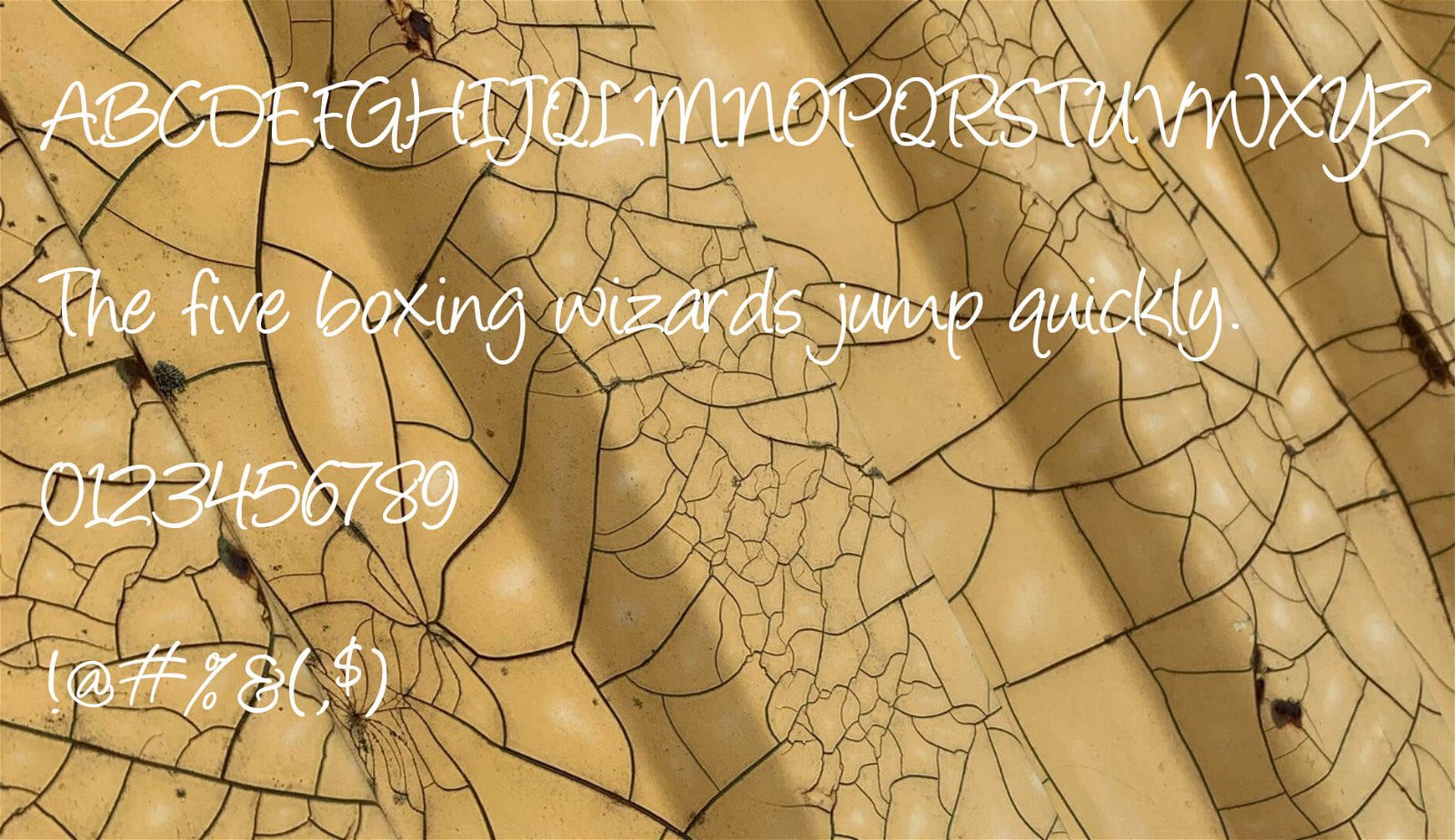
Introducing Angelina font, this is a very high-quality script typeface that is designed by Angie Durbin. It has a natural and ultra-modern style. This typeface comes in one regular natural style as well as amazing features that are perfect for all design projects such as card designs, Quotes, weddings, brands, fashion designs, and many more. This is a superior typeface that provides a unique look to any document and it has a great appearance on any print media.
This font family comprises 102 unique glyphs and 243 defined characters including Uppercase, lowercase, numbers, general punctuations, basic Latin, Latin-1 Supplement, Latin Extended-A, Greek and Coptic, Letterlike Symbols, Private Use Area, Mathematical Operators, and Geometric Shapes. This set of characters are very suitable for any printing purposes as well as text design projects.
Reason to Use Angelina Font
Script typeface is always best for any documentation and printing project. It can also be used for any short or lengthy paragraphs as well as content, signatures, articles, Hotel/Casino names, post descriptions, headlines, titles, book titling, brands, newspapers and magazines headings, and many more.
You can also make an attractive logo design for your companies, websites, and brand because of its clean and clear styles. However, it is also suitable for many other designs such as banners, book covers, t-shirt designs, product packaging, branding project, brochure layouts, website templates, stationaries, photographic, social media posts, certificates, art designs, leaflets, webpage design, and plenty of more.
What type of font is Angelina?
Angelina is a very eye-catching script typeface and the designer of this attractive font is Angie Durbin. This typeface provides one regular style and 243 interesting characters.
What is the closest font to Angelina?
There are many similar fonts to this fantastic script typeface but you will find the most similarities of this font are in Holland Font, Breetty Italic Font, SVN-Very Berry Font.